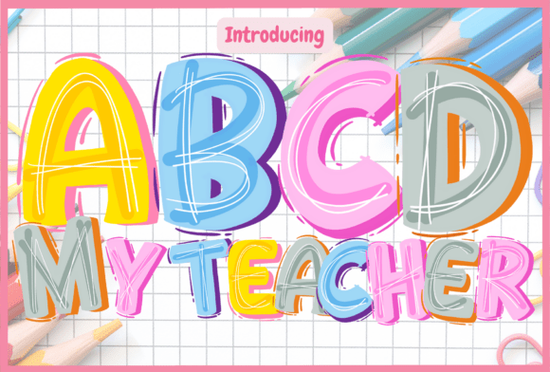
If you're looking for a playful, classroom-ready display font that’s easy to use and instantly recognizable as “teacher-friendly,” the Abcd My Teacher Font fits the bill. It’s not just another bubbly alphabet it’s thoughtfully designed for real-world educational use, from printable activity sheets to wall decor and digital learning tools. Teachers, homeschoolers, and small creative businesses often need fonts that feel warm, inclusive, and age-appropriate without sacrificing clarity or versatility and this one delivers.
What makes Abcd My Teacher different from other kids’ fonts?
Unlike generic rounded fonts, Abcd My Teacher uses bold, hand-drawn outlines and soft multicolor fills that mimic chalkboard doodles think cheerful lettering you’d see on a welcome sign outside a kindergarten door. Each letter has gentle curves, friendly proportions, and intentional spacing, so it stays legible even at smaller sizes on worksheets or flashcards. The black version is optimized for cutting machines like Cricut Design Space, making it practical for vinyl decals, classroom labels, or custom name tags. That means no extra conversion steps or workarounds you can cut right away.
Where does this font work best?
This isn’t a one-size-fits-all font but that’s a good thing. Its personality shines where warmth and approachability matter most:
- School posters and bulletin board headers (especially during back-to-school season)
- Printable teacher resources like behavior charts, reward certificates, or reading logs
- Classroom decor: name plates, door signs, or themed learning centers
- Educational games and matching activities for early learners
- Digital lesson slides or Canva templates aimed at elementary educators
It pairs well with simpler sans-serif fonts for body text like Open Sans or Nunito so your layouts stay balanced and readable. And if you like its energy but want something with more texture, the Super Watercolor Font offers a softer, paint-like alternative. For sporty or energetic themes, the Leopard Varsity Font adds contrast with bold letterforms and subtle pattern details.
Who should consider using it?
Designers building teacher-themed Canva templates or Etsy printables will appreciate how quickly Abcd My Teacher communicates tone no need to over-explain with clipart or extra graphics. Crafters who make physical classroom supplies (like laminated flashcards or fabric banners) benefit from the clean black outline version, which cuts reliably and layers nicely with other materials. Print-on-demand sellers focusing on school-themed mugs, tote bags, or notebooks find it especially useful for short, high-impact phrases “My Favorite Teacher,” “Reading Rockstar,” or “Kindergarten Crew.”
- Pair thoughtfully: Avoid stacking multiple decorative fonts. Let Abcd My Teacher lead, then support it with a neutral, highly legible companion.